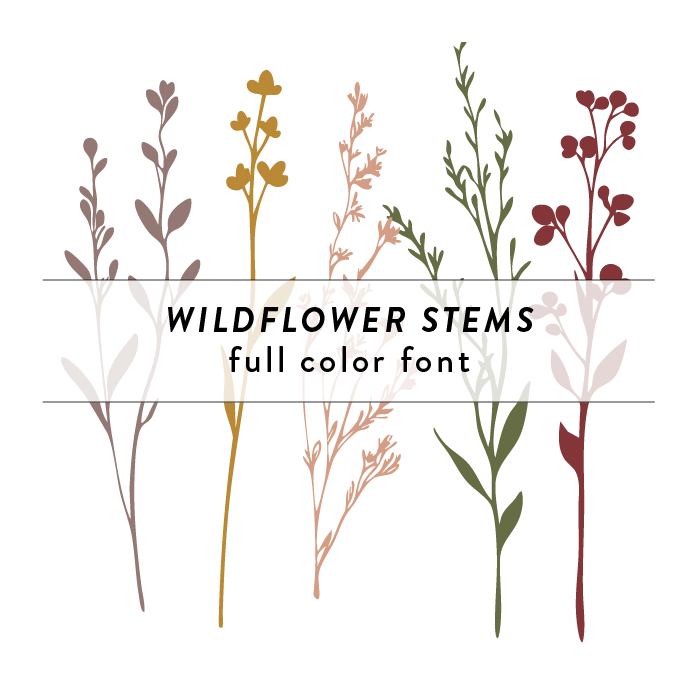
Color fonts will appear black if not used in a compatible program. This font type should be used with Silhouette Studio to appear in color. This font contains wildflower stems for wedding decor, embellishments, and other diy projects.